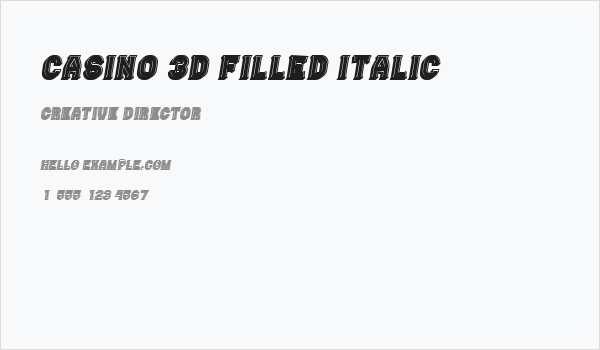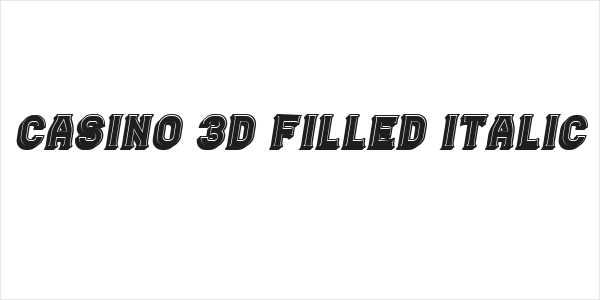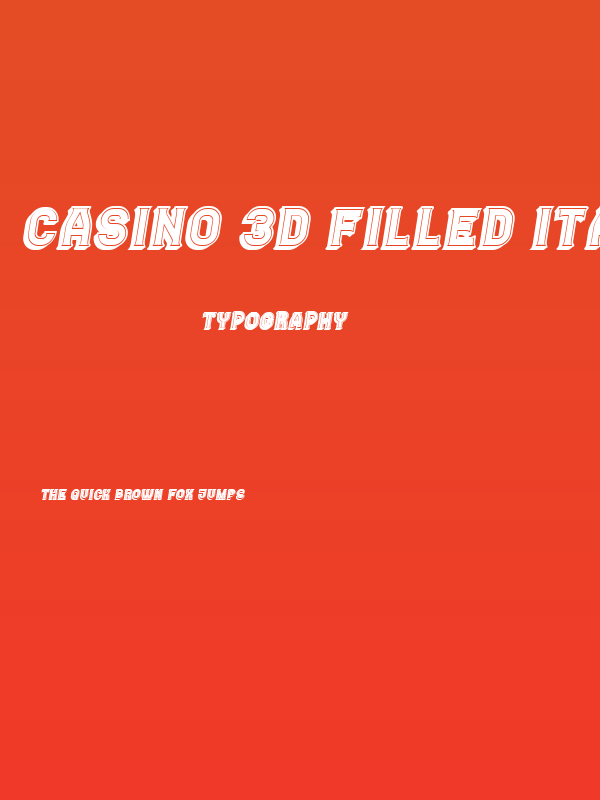
Casino 3D Filled Italic Font
Casino 3D Filled Italic Description
This font features a bold, three-dimensional appearance with a filled style that gives it a strong, impactful look. The italic slant adds a dynamic and forward-moving feel, making it ideal for attention-grabbing designs. Each character is outlined with a shadow effect, enhancing the 3D illusion and providing depth. The font is highly decorative, with a playful yet assertive style, suitable for projects that require a sense of excitement and energy. The characters are well-spaced, ensuring readability while maintaining the bold aesthetic.
| Proposed Projects | Ideal for casino-themed designs, posters, event promotions, and any project needing a bold, energetic typeface. |